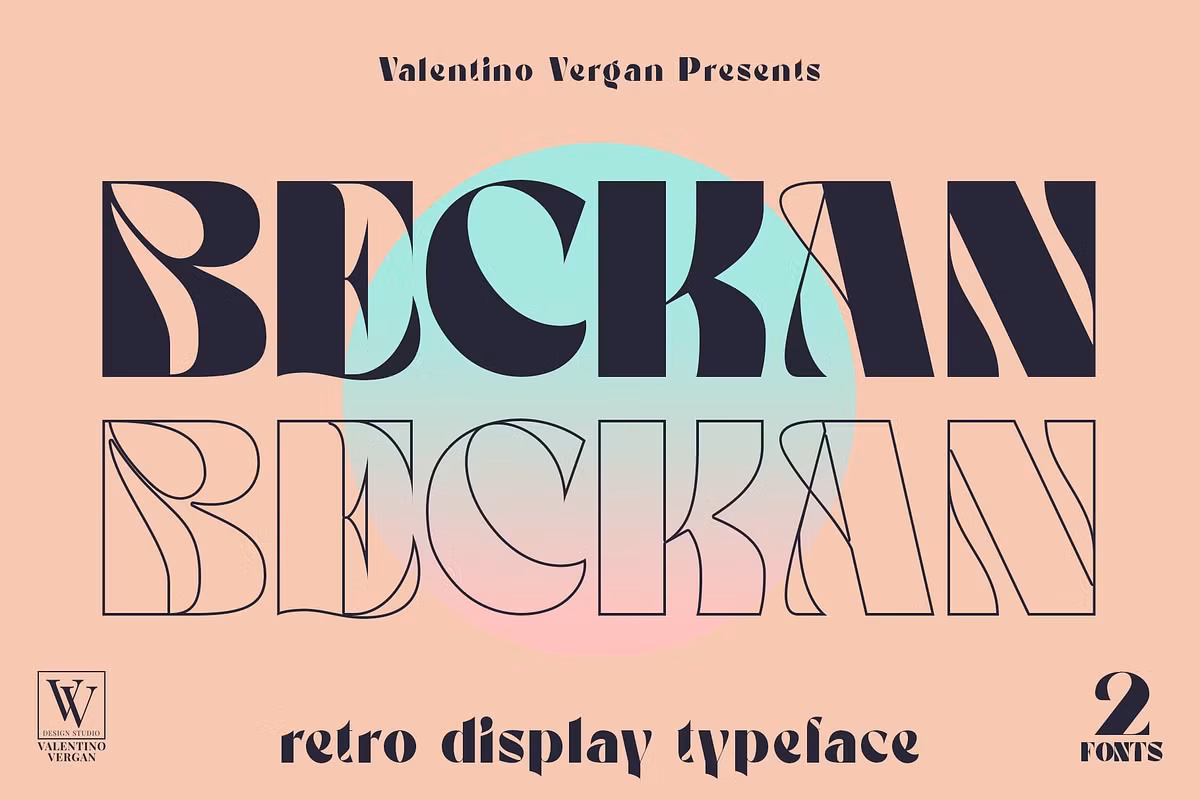
Beckan - Retro Typeface Free Download
Please note, you must purchase this font for commercial use. However, you can easily download Beckan - Retro Typeface Free Download for personal use and testing purposes. Beckan - Retro Typeface is a nostalgic, bold font inspired by vintage styles, perfect for projects that need a touch of retro charm. Ideal for branding, posters, logos, social media graphics, and more, this font evokes the vibrant and playful feel of the past while maintaining modern appeal. Its unique letterforms are great for creating eye-catching designs that stand out with a distinct vintage flair. Whether you're working on a retro-themed project, a music event flyer, or a branding campaign, Beckan - Retro Typeface Free Download will give your work a fun, timeless look. Download Beckan - Retro Typeface Free Download today and explore its potential before opting for a commercial license.